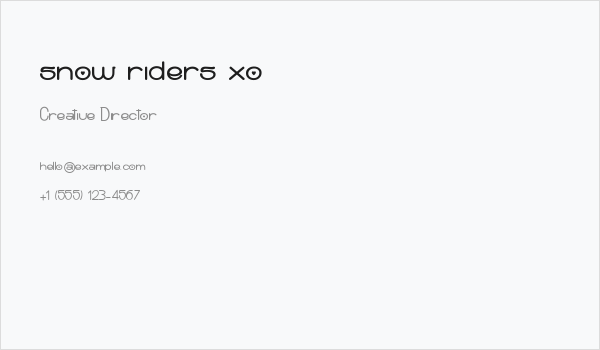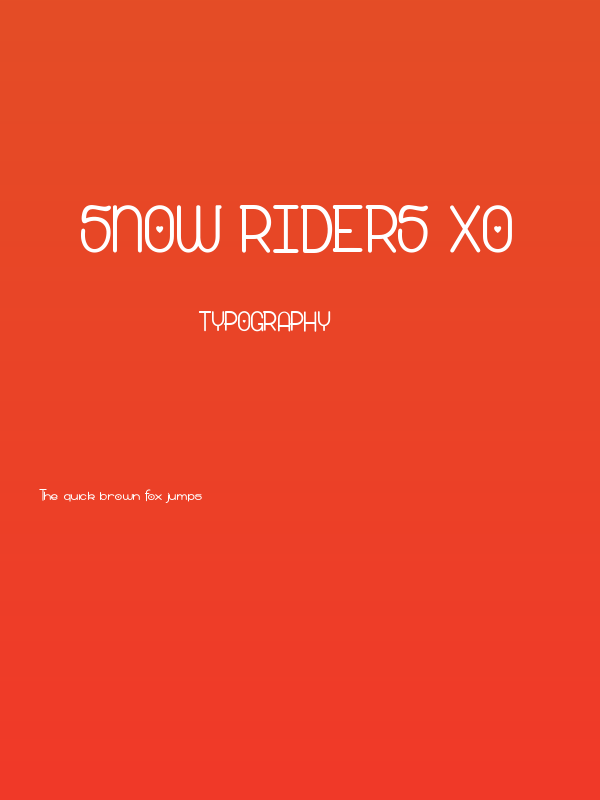
snow riders xo Font
snow riders xo Description
This font features a playful and modern design with rounded edges and a consistent stroke width. The characters are evenly spaced, giving it a clean and approachable appearance. The uppercase and lowercase letters maintain a uniform style, while the numerals and special characters complement the overall aesthetic. Its simplicity and clarity make it suitable for a variety of applications, from digital to print media. The font's unique character is evident in its subtle curves and smooth lines, which add a touch of elegance without sacrificing readability.
| Use Case | Headlines, Logos, Digital interfaces |
| Proposed Projects | Ideal for children's books, playful branding, casual invitations, and digital interfaces. |